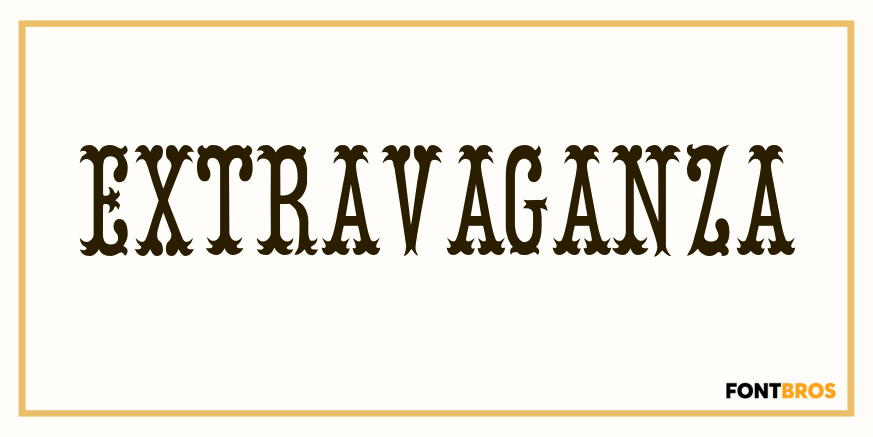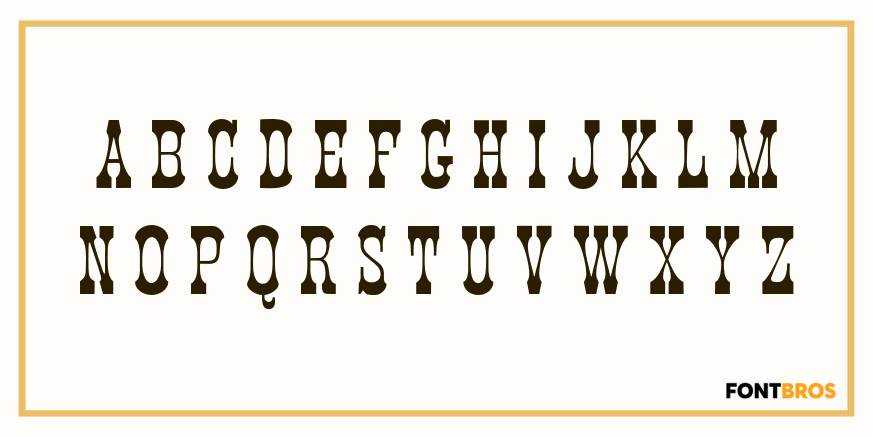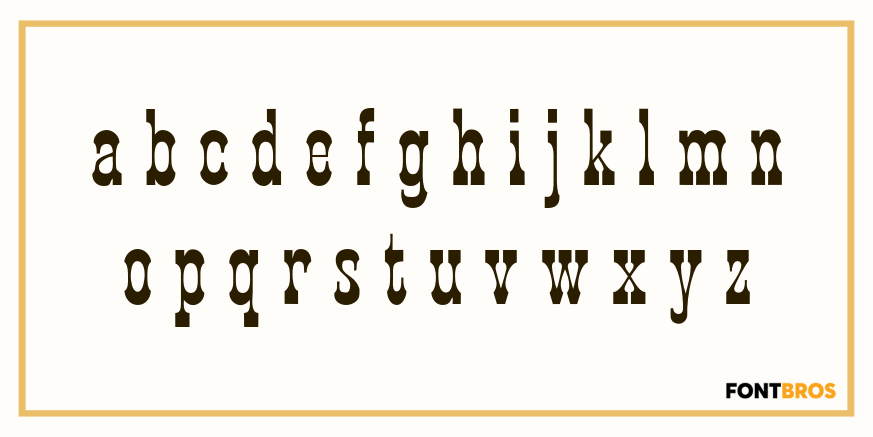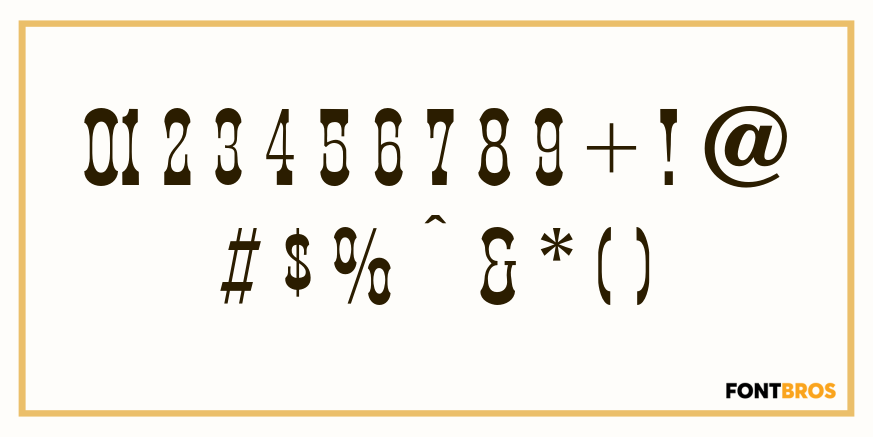
Coney Island Normal
Font Family by Solotype
This is based on a mid-Victorian Connor's foundry font known initially as Manhattan.
One of several old faces known in America as "French Clarendons", in Europe as "Italians", and, wait for it, in France as "American".